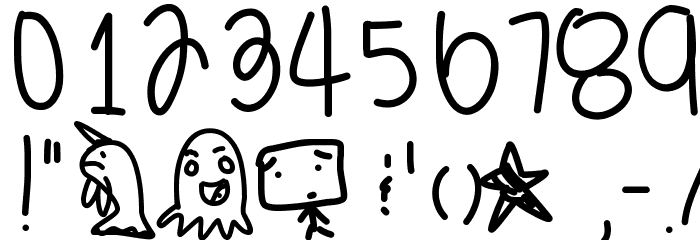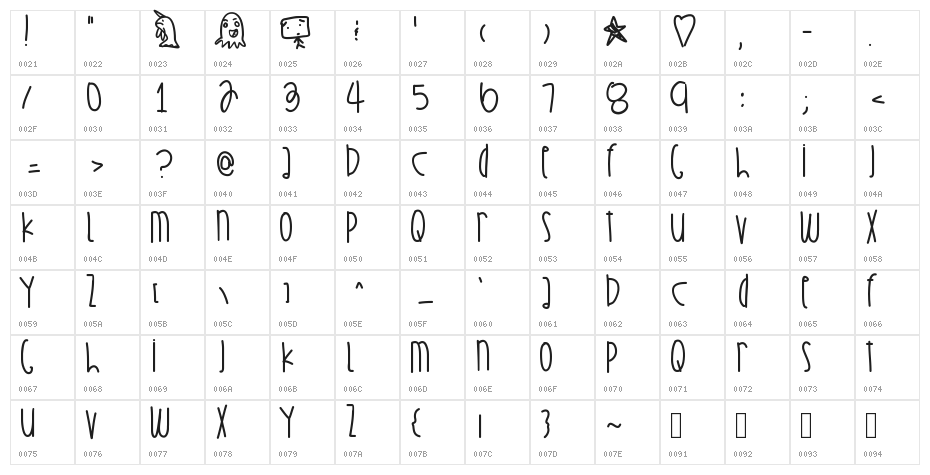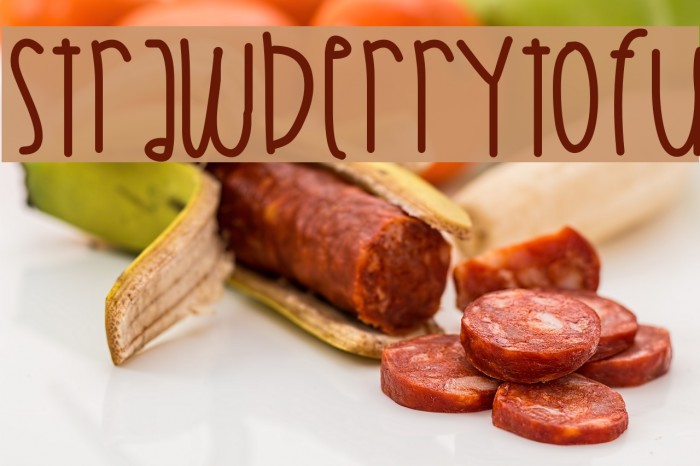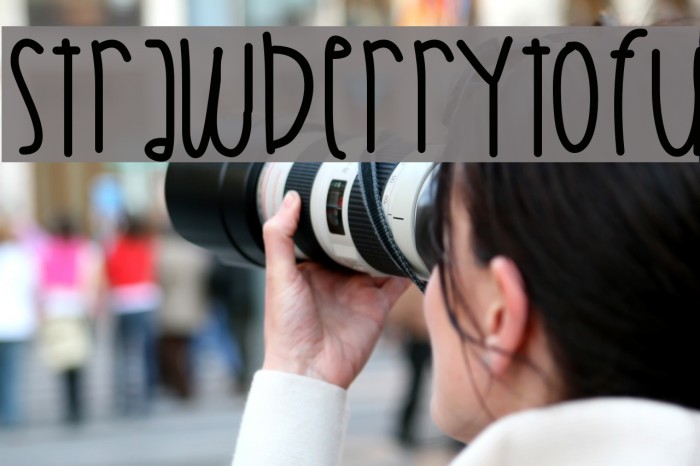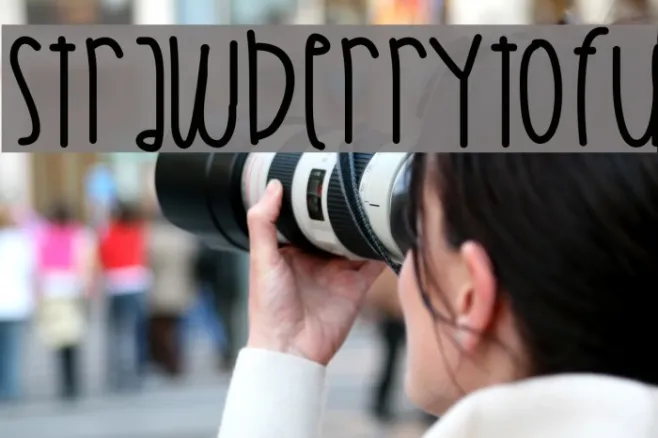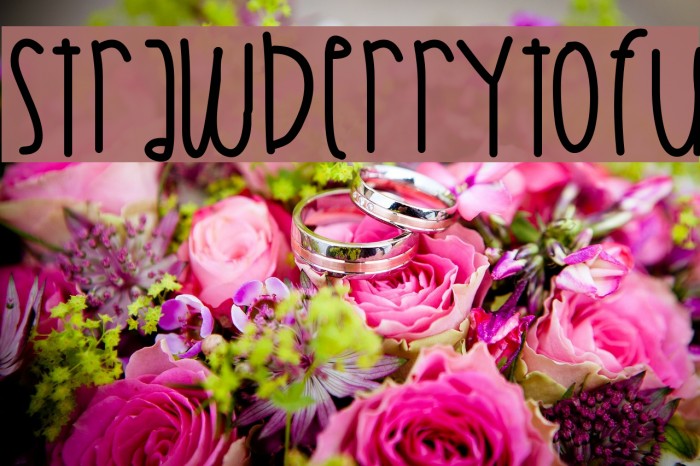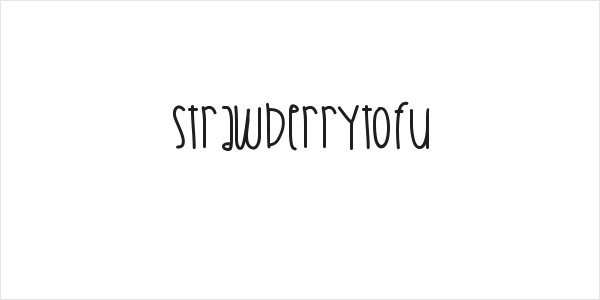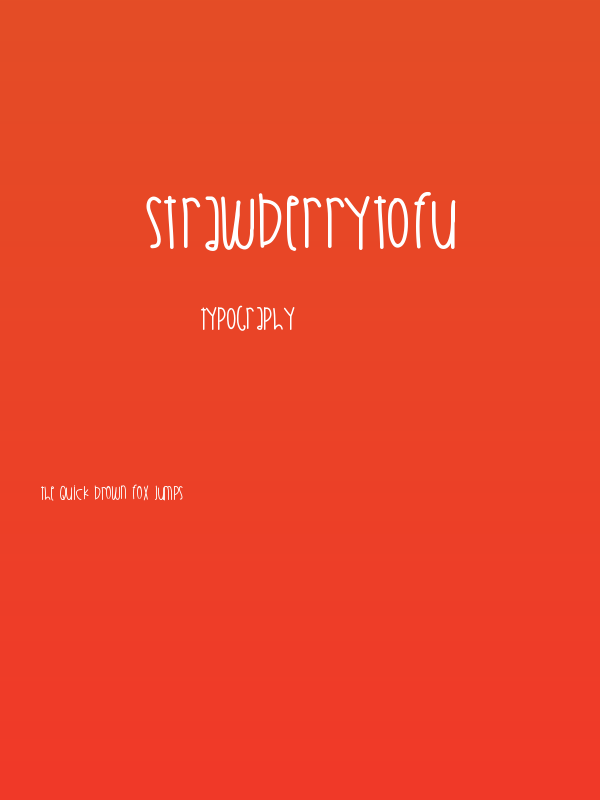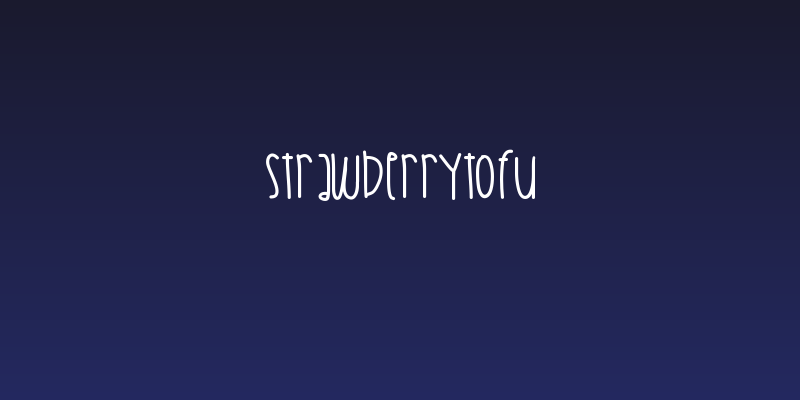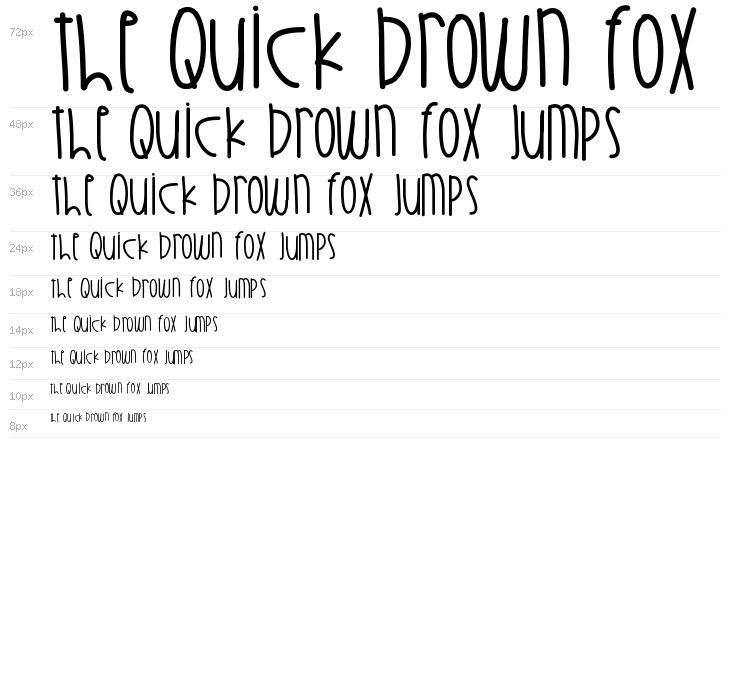
StrawberryTofu Font
StrawberryTofu Description
This playful and whimsical font features a handwritten style with a casual and friendly appearance. The characters are tall and narrow, with rounded edges that give them a soft and approachable feel. The uppercase and lowercase letters maintain a consistent style, with slight variations that add to the hand-drawn charm. Numbers and special characters are included, each maintaining the same playful aesthetic. The font's overall look is informal and fun, making it ideal for creative projects that require a personal touch.
| Proposed Projects | Ideal for children's books, greeting cards, playful branding, and social media graphics. |